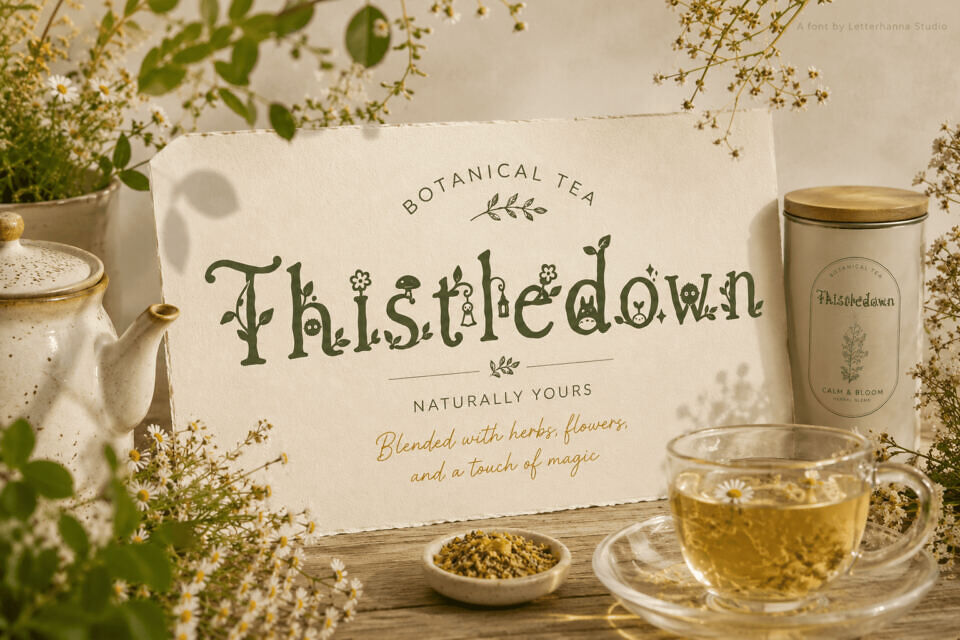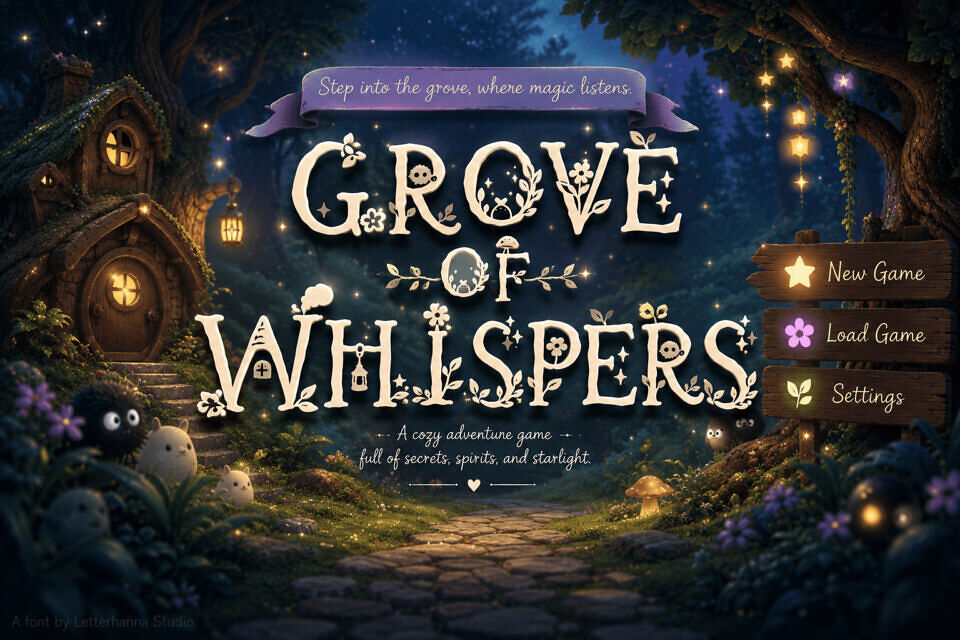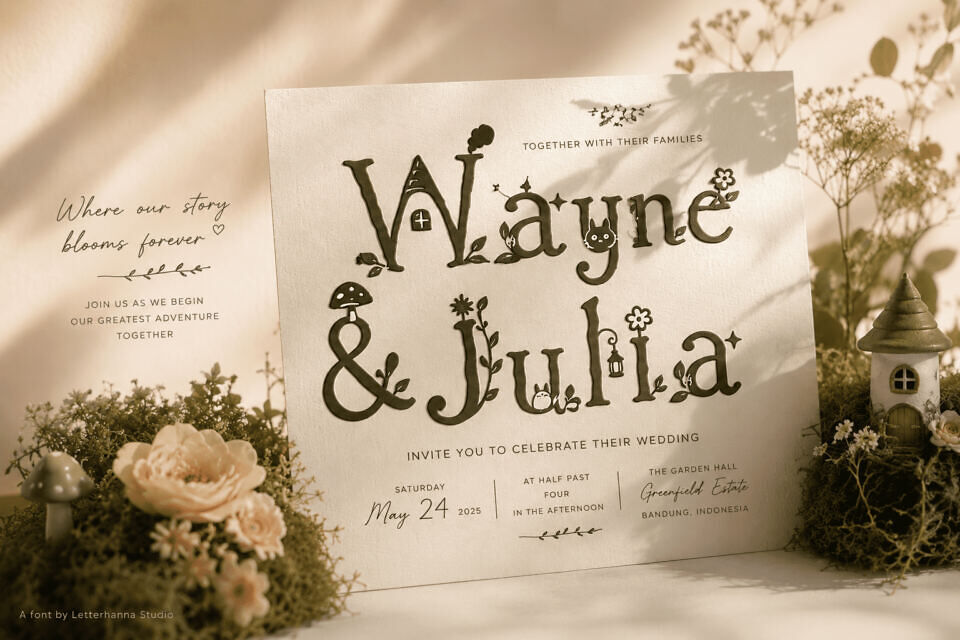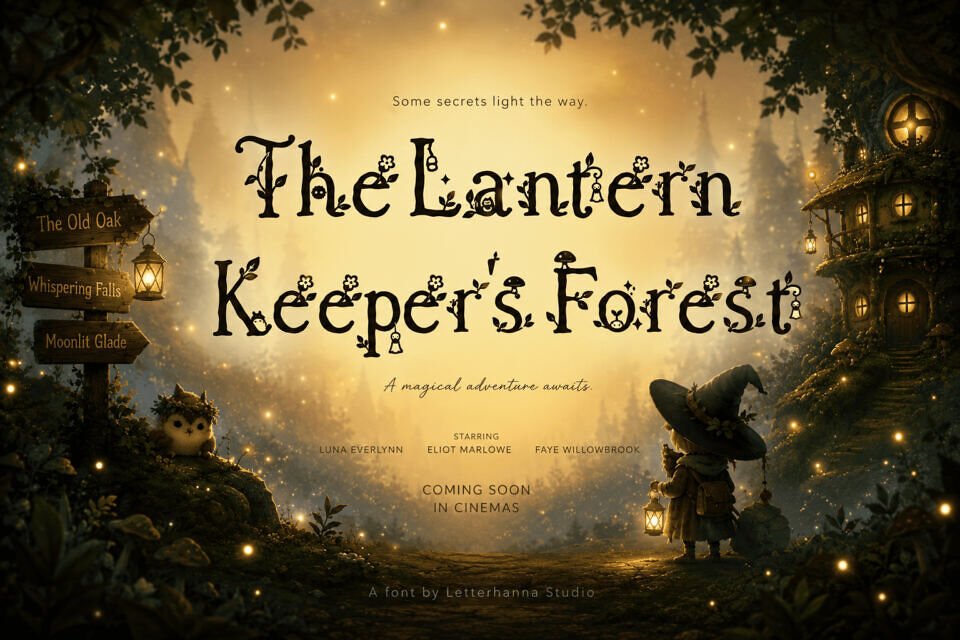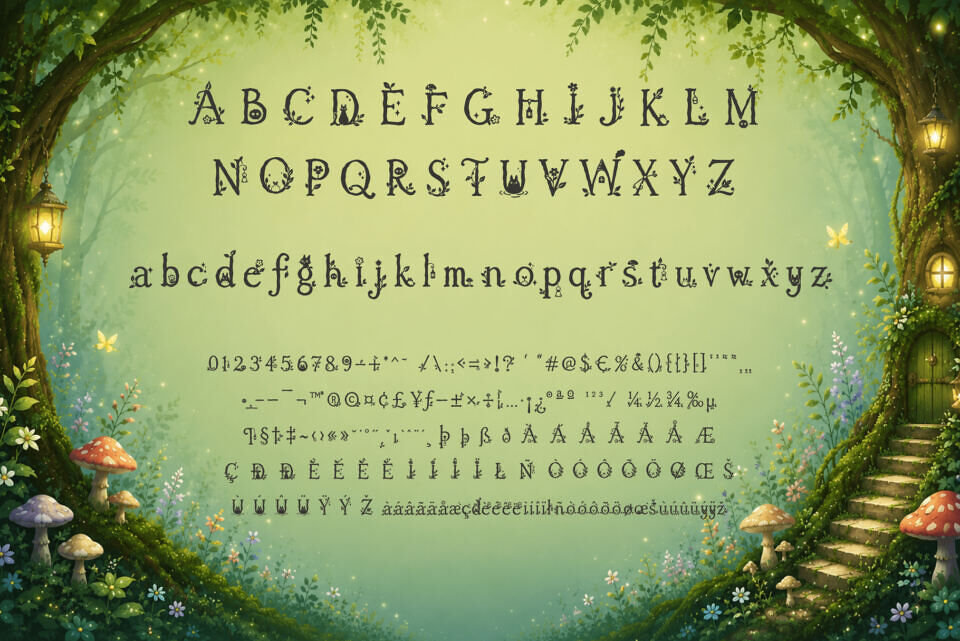
For a storybook-like design, consider a magical font like Holwyn Dream. Its soft, hand-lettered strokes and delicate details evoke emotion before the text is even read.
The font features slim, curved letters with tiny illustrations, such as black cats and flowers, woven into the characters. This creates a cozy, nature-inspired feel with a touch of magic, perfect for those who love a whimsical, cottage-like aesthetic with a hint of fantasy.